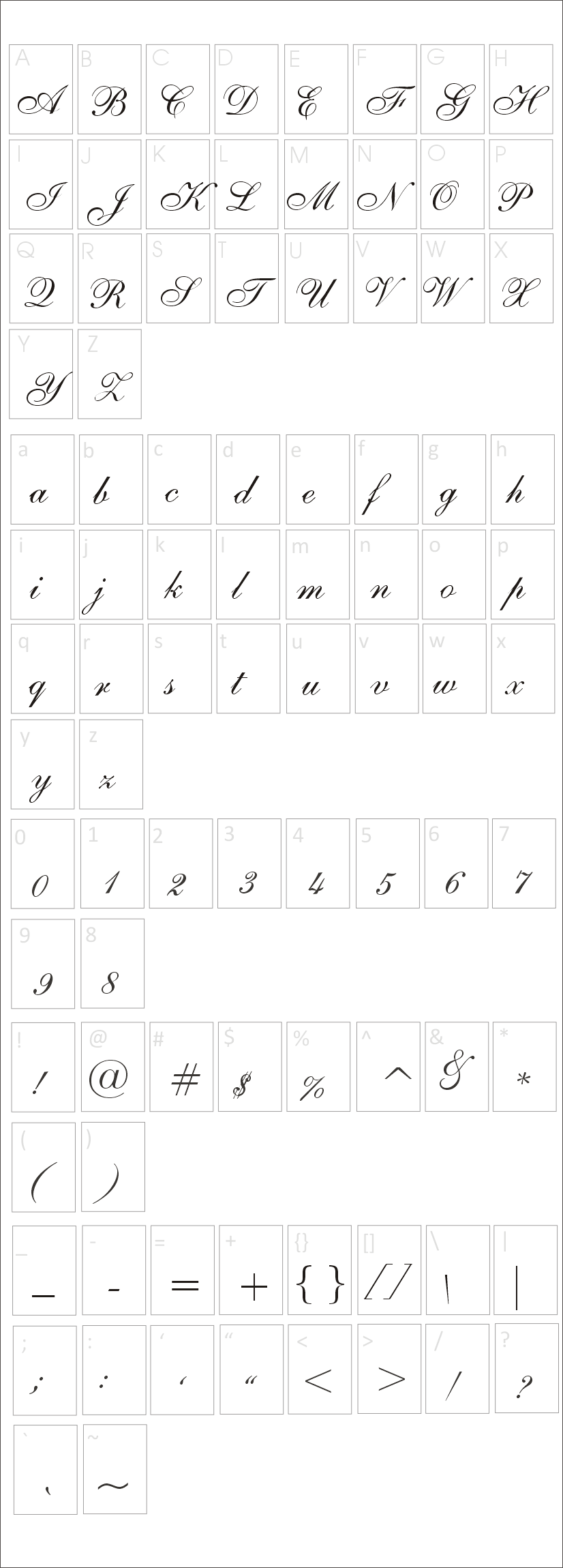
| Name | Shelley Allegro BT Font |
| Font Designer: | Matthew Carter |
| Category: | Script, Calligraphic |
Shelley Allegro BT Font is an elegant and refined script typeface known for its flowing, calligraphic letterforms. Part of the Shelley series, which includes other styles such as Shelley Andante and Shelley Volante, this particular font is designed with a light, graceful touch, giving it a distinctive sense of formality and sophistication. It’s ideal for projects that require a touch of elegance and personalization, such as invitations, branding, or editorial design.
Key Features of Shelley Allegro BT Font:
- Elegant Script Design: Shelley Allegro BT has flowing, cursive strokes that closely mimic elegant handwriting. Its sophisticated appearance makes it perfect for formal and high-end design projects.
- Calligraphic Style: The font is based on traditional 18th-century copperplate handwriting, giving it a classic and timeless feel while retaining modern functionality.
- Graceful and Refined: The light and airy strokes of Shelley Allegro BT make it look delicate yet stylish, providing an ideal balance between readability and decorative appeal.
- Versatile Application: This font is highly versatile, suitable for various formal or personalized uses, from wedding invitations to corporate branding where sophistication is key.
Uses for Shelley Allegro BT Font:
- Wedding Invitations and Stationery: The elegant script design of Shelley Allegro BT is perfect for formal invitations, thank-you cards, and other event stationery.
- Branding and Logos: This font lends a graceful, high-end look to logos, letterheads, and other branding elements for luxury brands, fashion houses, or creative businesses.
- Certificates and Diplomas: Shelley Allegro BT is ideal for formal documents like certificates, diplomas, or awards, adding a touch of class and tradition.
- Editorial and Magazine Design: Its calligraphic style works well in headings or decorative text for high-end magazines, catalogs, or promotional materials.
- Personalized Gifts and Merchandise: Use Shelley Allegro BT for customized items such as monograms, engraved products, or personalized artwork, where a formal yet personalized touch is desired.